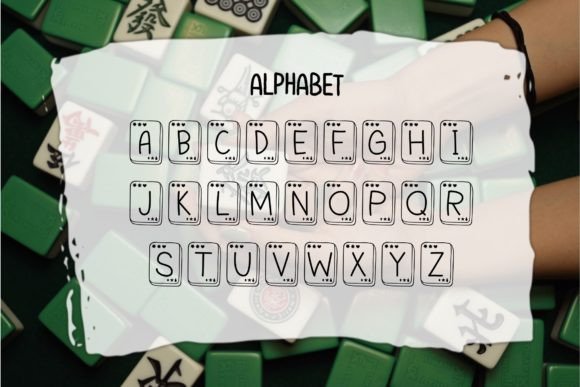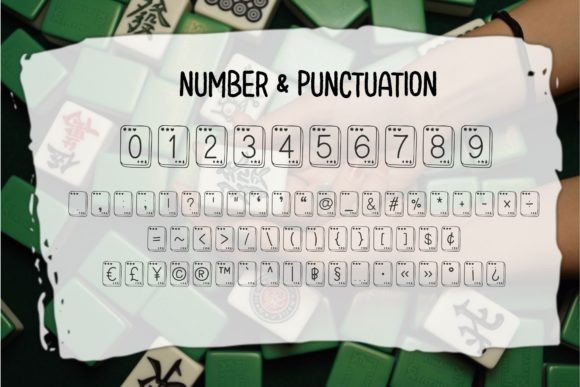
Mahjong Font
Mahjong is a stunning decorative font. This lovely font is the perfect fit for all of your logos, branding, social media, crafty DIY projects, and much more!